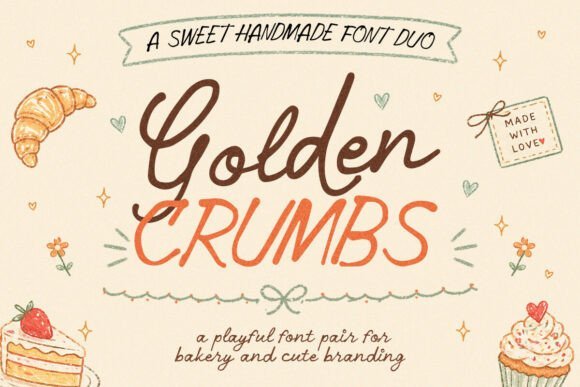
Spreading Joy, One Font at a Time
Imagine walking into a cozy bakery, surrounded by the sweet aroma of freshly baked goods. You can’t help but smile as you take in the warm and inviting atmosphere. This feeling is exactly what designers aim to capture when working with typography. And for those looking to add a touch of warmth and playfulness to their designs, the Golden Crumbs Font is the perfect addition.
This delightful font duo combines a soft handwritten script with a playful sans, evoking the feeling of fresh treats straight out of the oven. Whether it’s a bakery logo, packaging, menu, or branding, the Golden Crumbs Font adds a friendly, tasty, and joyful vibe that’s hard to resist. Its lighthearted and easy-to-use design makes it a valuable asset for designers looking to sprinkle a bit of happiness into every project.
Key Features of Golden Crumbs Font
- Unique Characteristics: The Golden Crumbs Font features a unique, hand-drawn design with intricate details and textures, giving it a warm and inviting feel.
Golden Crumbs Font Review
I recently had the chance to work with the Golden Crumbs font, and I have to say it’s a mixed bag. Let’s start with what works well:
- ✨ The font has a unique, playful feel that’s perfect for food or kids-related projects. The illustrations and textures are adorable.
- ✨ The font is highly customizable, with a wide range of options for color, size, and style. This makes it easy to adapt to different design styles and branding.
- ✨ The font is well-suited for use in social media graphics, print materials, and digital products.
- ⚠️ The font can be a bit too cutesy for more serious or professional projects. It may not be the best choice for corporate branding or high-end designs.
- ⚠️ Some of the font’s features can be a bit overwhelming, making it difficult to use for complex designs or text-heavy layouts.
Overall, I think Golden Crumbs is a great choice for projects that need a fun, playful touch. However, it may not be the best fit for more serious or complex designs.
The Golden Crumbs Font is perfect for creating whimsical and playful designs, such as invitations, social media graphics, and children’s books. It’s also great for adding a touch of elegance and sophistication to wedding invitations, menus, and other formal designs.